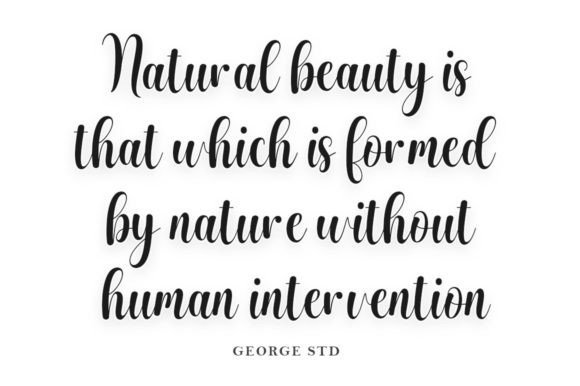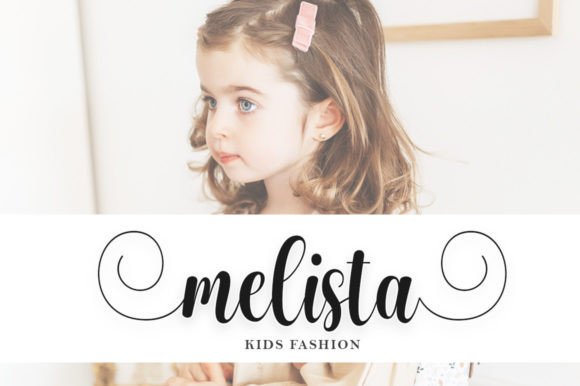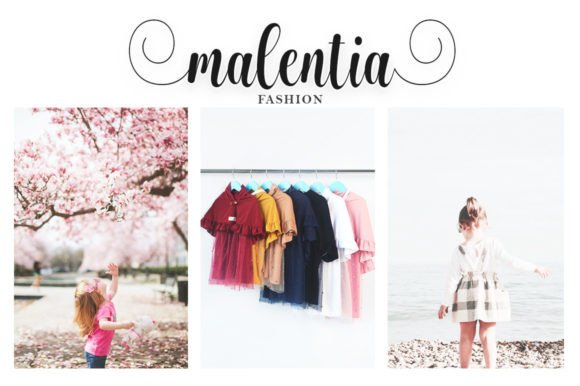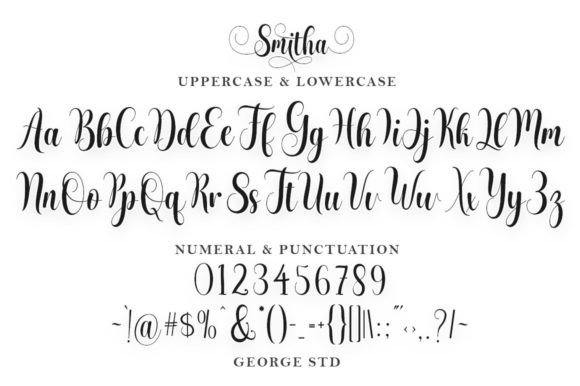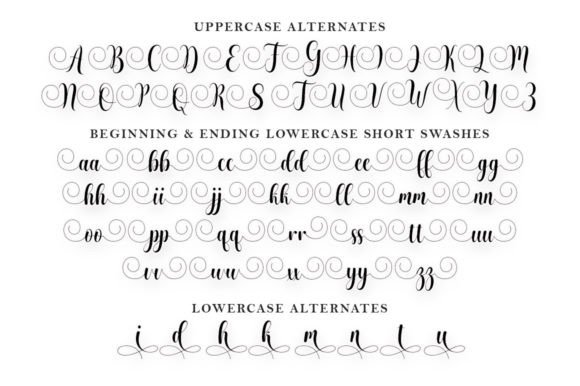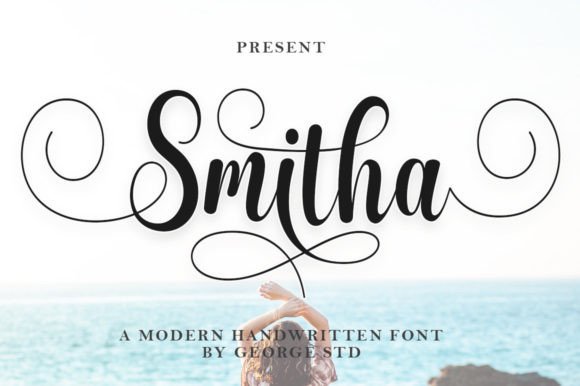
Introduction to Smitha Font
Have you ever stared at a blank canvas, trying to conjure up the perfect idea for a creative project? Maybe you’re designing a birthday card for a loved one or working on a marketing campaign for a new business. Whatever the project, sometimes all it takes is the right font to bring it all together.
That’s where the Smitha Font comes in – a simple yet elegant handwritten font that’s perfect for adding a natural touch to your design. With its wide range of applications, from greeting cards to headlines, Smitha Font is a versatile design resource that’s sure to elevate your next project. And the best part? It’s available for a free download, making it an accessible high-quality design tool for designers of all levels.
Whether you’re a seasoned pro or just starting out, the Smitha Font is a valuable addition to any design toolkit. Its transparent background and high-quality design make it a go-to choice for designers looking to add a personal touch to their creative projects.
Key Features of Smitha Font
- High-quality design: This font features a high-quality design with clean lines and a transparent background, perfect for use in various creative projects.
- Unique characteristics: The Smitha Font features a unique, modern design with a minimalist aesthetic, making it an excellent choice for creative projects that require a clean and simple look.
Honest Review: Smitha Font
I recently had the chance to work with the Smitha Font, and I must say it’s a great addition to any designer’s toolkit. The font is available for free download, which is a huge plus for creatives working on a budget.
What works well: ✨ The Smitha Font has a clean and modern design that makes it perfect for creative projects that require a touch of sophistication. It’s also highly legible, even at smaller font sizes, making it a great choice for body text. Additionally, the font has a transparent background, which is a nice feature for designers who want to create subtle, layered designs.
- High quality and modern design
- Perfect for creative projects and design resources
- Transparent background for subtle designs
Limitations: ⚠️ The Smitha Font only comes in a few weights, which may limit its versatility for designers who need a wide range of font styles. Additionally, the font may not be suitable for projects that require a more playful or casual tone.
Overall, I’m impressed with the Smitha Font and would definitely recommend it to designers who are looking for a high-quality, modern font for their creative projects.
Tips for Getting the Most Out of Smitha Font
Use Smitha Font in combination with other design resources to create visually appealing designs. Experiment with different font sizes and styles to add depth to your project.
Smitha Font is ideal for creative projects such as posters, flyers, and brochures. It can also be used for presentations, documents, and other business materials that require a high-quality, professional design.